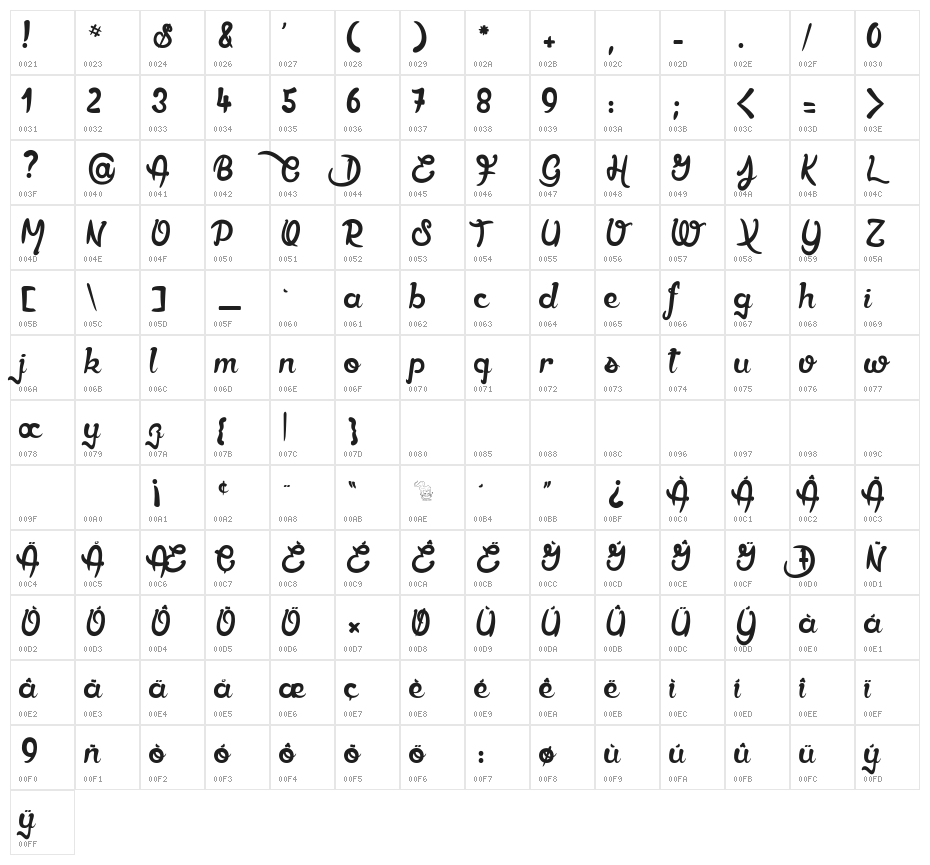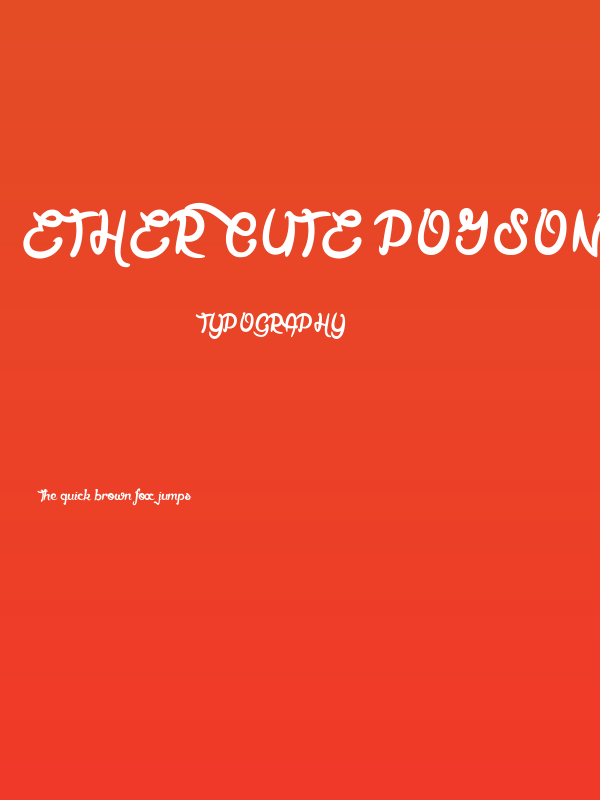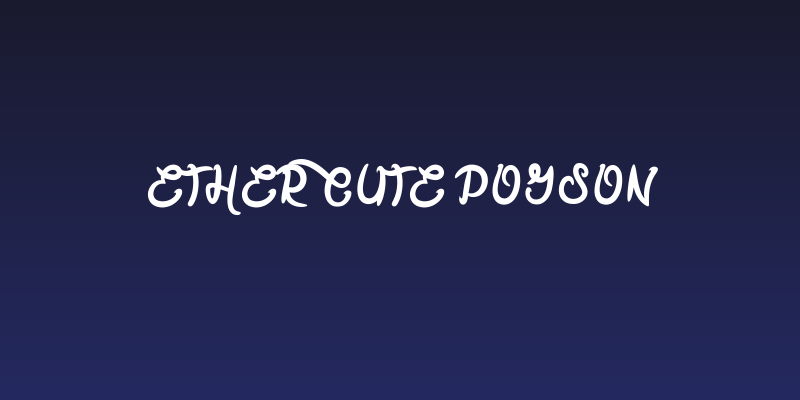
Ether Cute Poison Font
Ether Cute Poison Description
This playful and whimsical font features a handwritten style with a smooth, flowing script. The characters are bold and rounded, with a consistent stroke width that gives it a cohesive look. The uppercase letters have a slight slant, adding a dynamic feel, while the lowercase letters maintain a more upright posture. The numerals and special characters are designed to match the overall style, ensuring a harmonious appearance across all elements. This font exudes a sense of fun and creativity, making it ideal for projects that require a touch of personality and flair.
| Proposed Projects | Ideal for greeting cards, playful branding, children's books, and creative invitations. |